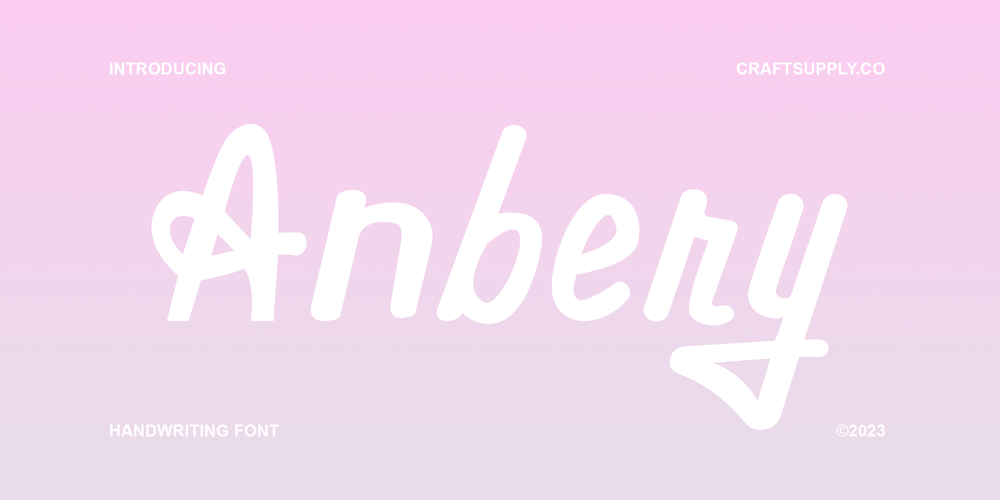
Anbery Font Family was designed by Trio Nazzar Saputra, Wahyu Hadi Yuana and published by Craft Supply Co. Anbery contains 1 styles and family package options. Anbery – Handwriting Font is a playful script typeface that exudes a carefree and fun-loving vibe, perfect for adding a touch of whimsy to your display designs. With its charming, handwritten style, Anbery captures the essence of spontaneity and creativity, making it an ideal choice for projects that aim to convey a sense of playfulness and joy.